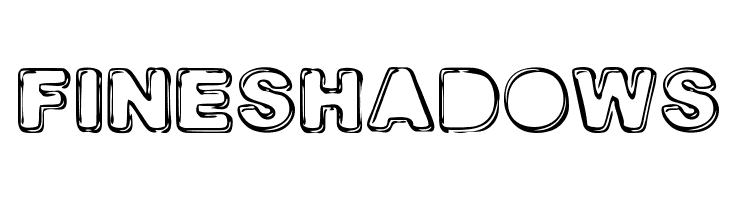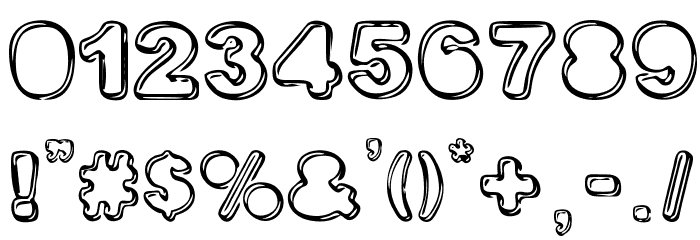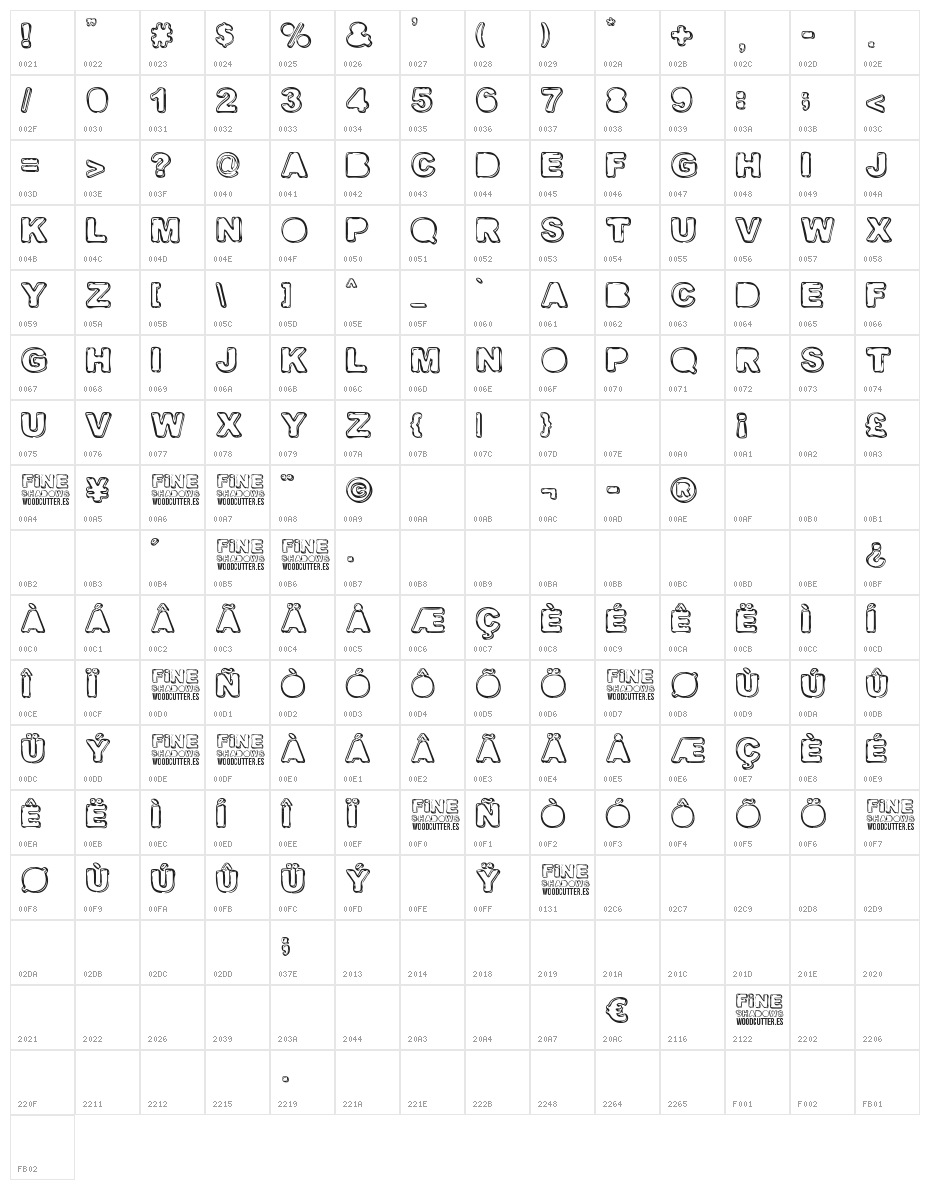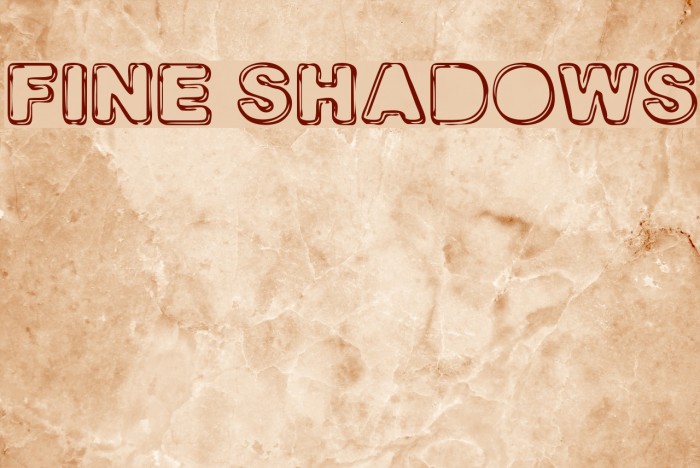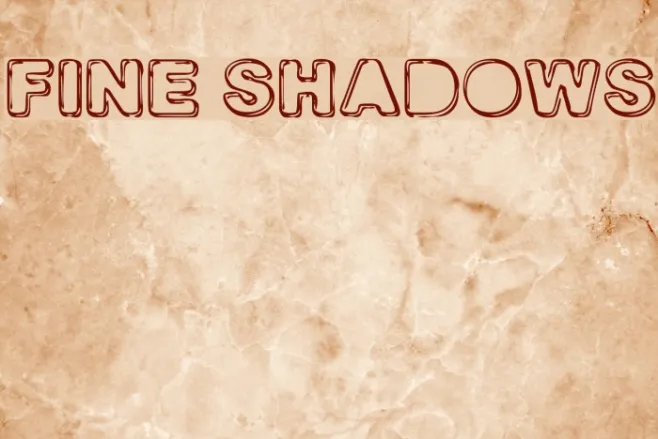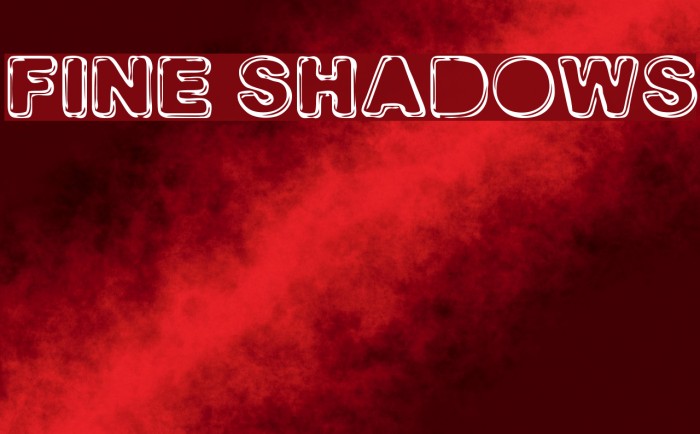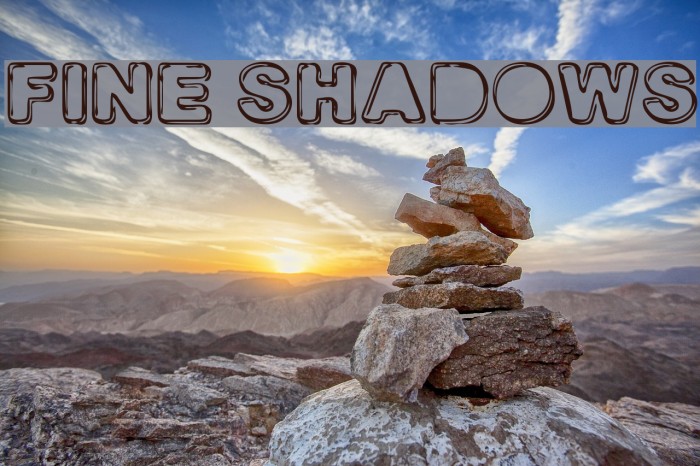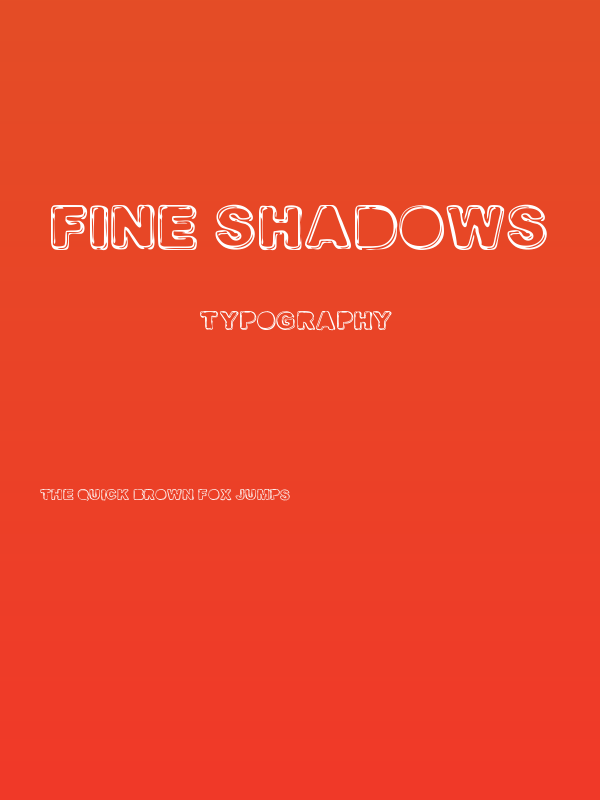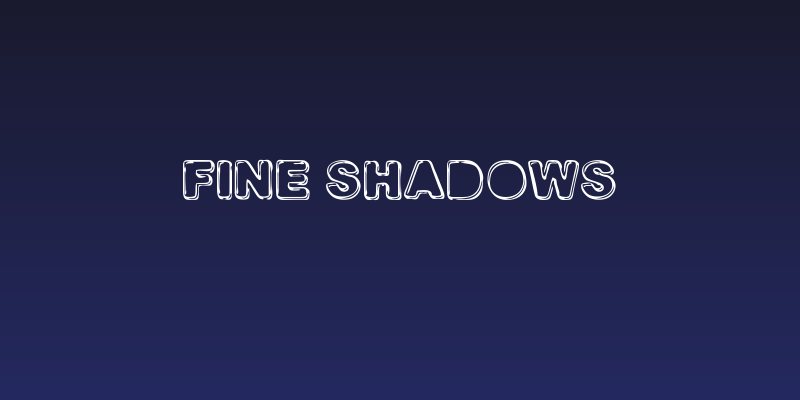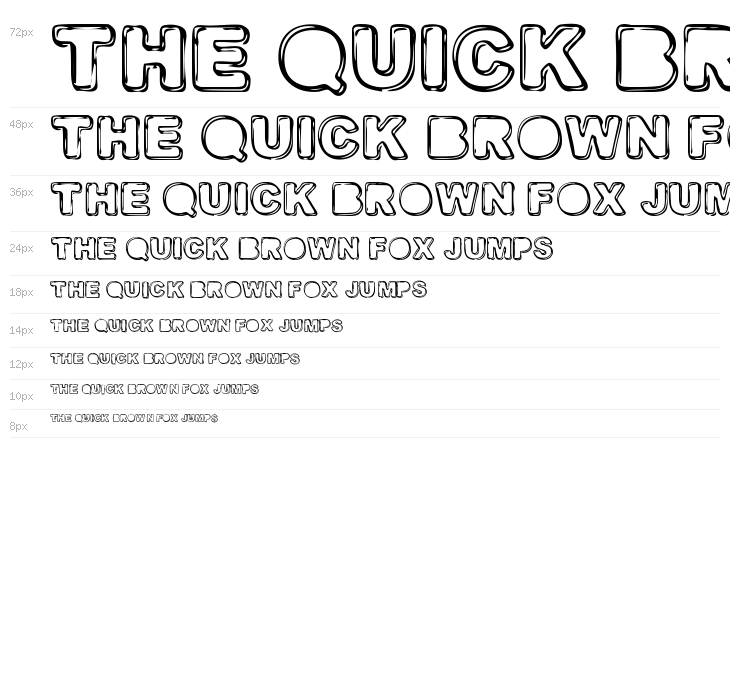
FINE SHADOWS Font
FINE SHADOWS Description
This font features a bold, playful design with a unique shadow effect that gives each character a three-dimensional appearance. The letters are rounded and have a consistent thickness, creating a cohesive look across both uppercase and lowercase alphabets. The shadowing adds depth and visual interest, making it stand out in any design. The numbers and special characters maintain the same style, ensuring uniformity throughout. This font is ideal for projects that require a fun and engaging typeface, such as children's books, posters, or creative branding.
| Overall Style | Playful, Decorative |
| Proposed Projects | Ideal for children's books, posters, creative branding, and playful designs. |